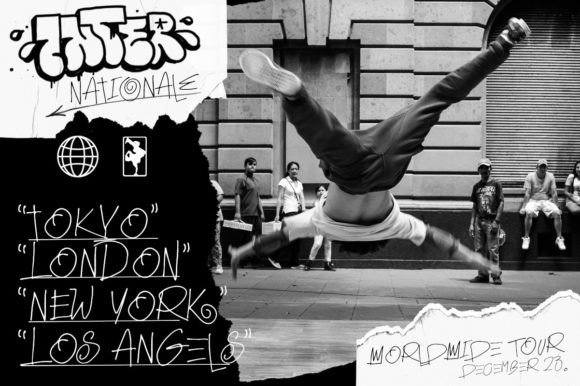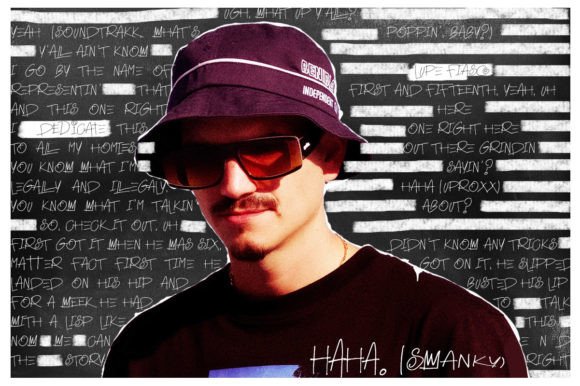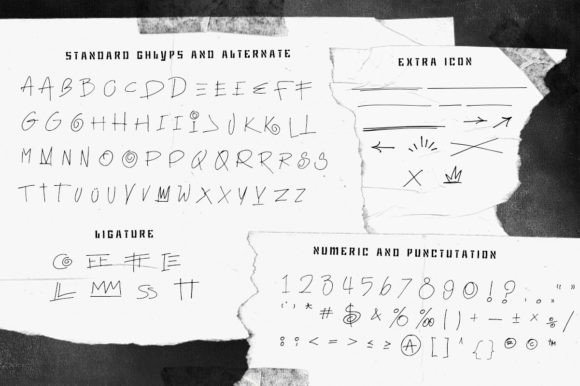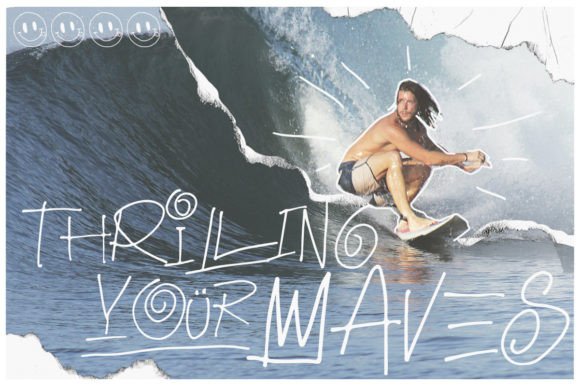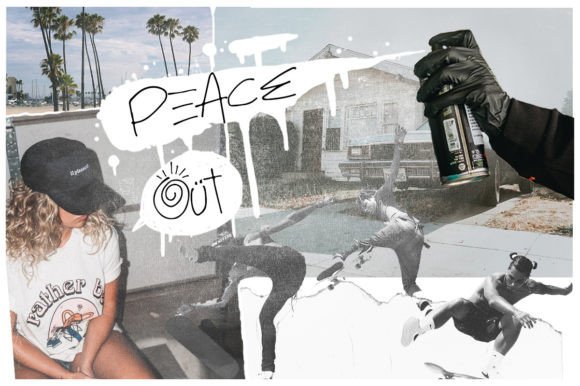
Famous Starss Font: A Quirky Display Font Inspired by 80’s Graffiti Art
Are you looking for a font that adds a touch of nostalgia and playfulness to your designs? Look no further than Famous Starss Font, a cool and quirky display font inspired by the rudimentary 80’s graffiti art. This unique font is perfect for designers and crafters who want to add a dash of personality to their titles, logos, product packaging, branding projects, magazines, social media, and more.
The Inspiration Behind Famous Starss Font
Famous Starss Font takes its cue from the vibrant and eclectic world of 80’s graffiti art. During this era, street artists used bold colors, playful lettering, and carefree spirit to create murals that reflected their individuality and creativity. This font captures the essence of that era, with its childish and whimsical nature that is sure to bring a smile to your face.
Key Features of Famous Starss Font
Famous Starss Font comes with a range of features that make it a versatile and practical choice for designers and crafters. Here are some of its key benefits:
- Unique and Quirky Design: Famous Starss Font boasts a one-of-a-kind design that is sure to make your projects stand out from the crowd.
- PUA Encoded: This font is PUA encoded, which means you can access the glyphs and alternates with ease, giving you greater flexibility and creative control.
- Perfect for Display Purposes: With its bold and playful design, Famous Starss Font is ideal for titles, headings, and other display purposes.
- Multipurpose: This font can be used for a wide range of projects, from product packaging and branding to magazines, social media, and more.
Use Cases for Famous Starss Font
Famous Starss Font is a versatile font that can be used in a variety of contexts. Here are some use cases to get you started:
- Titles and Headings: Use Famous Starss Font to create eye-catching titles and headings that add a touch of personality to your projects.
- Logos and Branding: This font is perfect for creating unique and memorable logos that reflect your brand’s personality and values.
- Product Packaging: Add a touch of whimsy and fun to your product packaging with Famous Starss Font.
- Magazines and Social Media: Use this font to create engaging and shareable content for magazines, social media, and other digital platforms.
Tips for Using Famous Starss Font
Here are some tips to help you get the most out of Famous Starss Font:
- Experiment with Colors: Famous Starss Font looks great in bold, bright colors. Experiment with different color combinations to find the perfect look for your project.
- Play with Size and Scale: This font looks great in large sizes, but it can also be used for smaller text. Experiment with different sizes and scales to find the perfect balance for your project.
- Mix and Match with Other Fonts: Famous Starss Font pairs well with other fonts. Try mixing and matching it with other fonts to create a unique and interesting look.
| Author | Dancubs |
Famous Starss Font is a unique and quirky display font that is perfect for designers and crafters who want to add a touch of personality to their projects. With its bold and playful design, PUA encoding, and multipurpose uses, this font is sure to become a favorite in your font collection. So why not give it a try and see how it can elevate your designs?